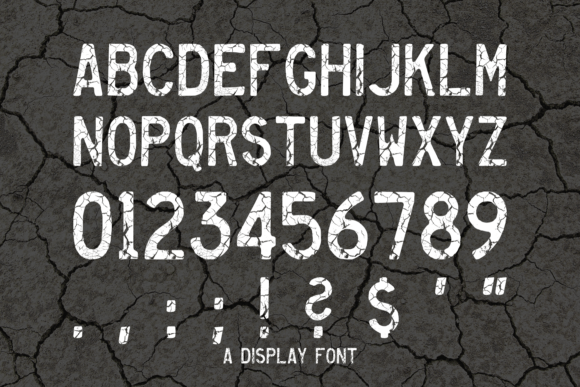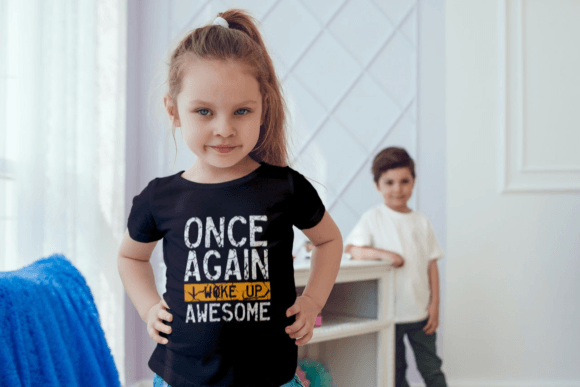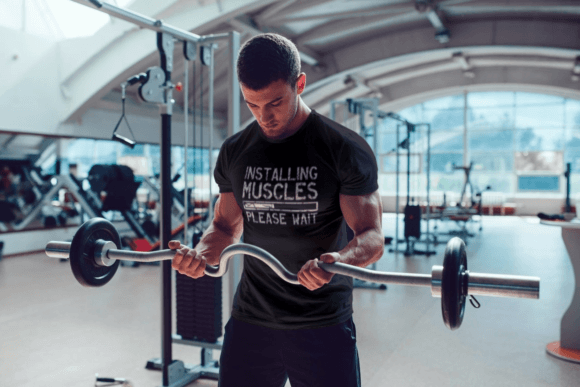
Introduction to Dry Drought Font
Have you ever stared at a blank canvas, waiting for the perfect idea to strike? That’s where creativity meets opportunity, and the right design resource can make all the difference. For designers looking to add a touch of rugged elegance to their projects, the Dry Drought Font is a game-changer.
This unique font boasts a distressed texture inspired by the harsh beauty of arid landscapes, making it a high-quality addition to any design project. Whether you’re working on a logo, poster, website, or even a T-shirt design, the Dry Drought Font is sure to elevate your creative project to new heights. With its free download option and transparent background, you can easily integrate it into your workflow and make a powerful statement with your designs.
Key Features of Dry Drought Font
- Unique characteristics include a distressed, weathered look and a subtle texture, adding depth and visual interest to designs.
Honest Review: Dry Drought Font
As a designer, I’m always on the lookout for high-quality design resources to elevate my creative projects. The Dry Drought Font caught my eye with its unique, distressed aesthetic that screams “desert vibes.” Let’s dive into what makes this font tick.
- ✨ The font’s distressed texture adds a lot of character to any design project.
- ⚠️ The font may not be suitable for designs that require a lot of fine typography, as the distressed texture can make text difficult to read.
- ⚠️ The font is only available in a limited number of weights, which may limit its versatility.
Overall, I’d say the Dry Drought Font is a solid addition to any designer’s toolkit. While it may not be perfect, its unique aesthetic and free download make it a great resource for designers looking to add some visual interest to their creative projects.
Introduction to Dry Drought Font
The Dry Drought Font is a unique and versatile design resource ideal for creative projects that require a high-quality, modern aesthetic. This font is perfect for designers and artists looking for a stylish and sophisticated look.
Common Use Cases for Dry Drought Font
The Dry Drought Font is ideal for creative projects, such as:
- Modern branding and logos
- High-end marketing materials
- Editorial and publishing design
- Graphic design and visual art